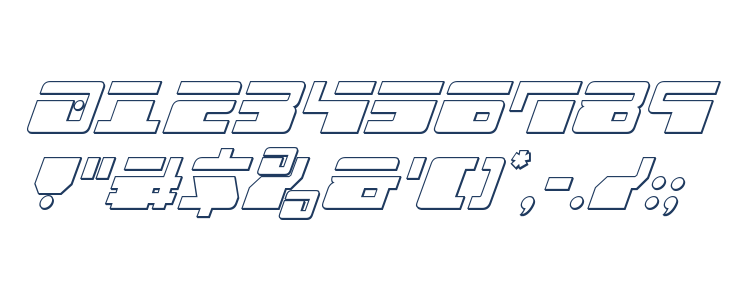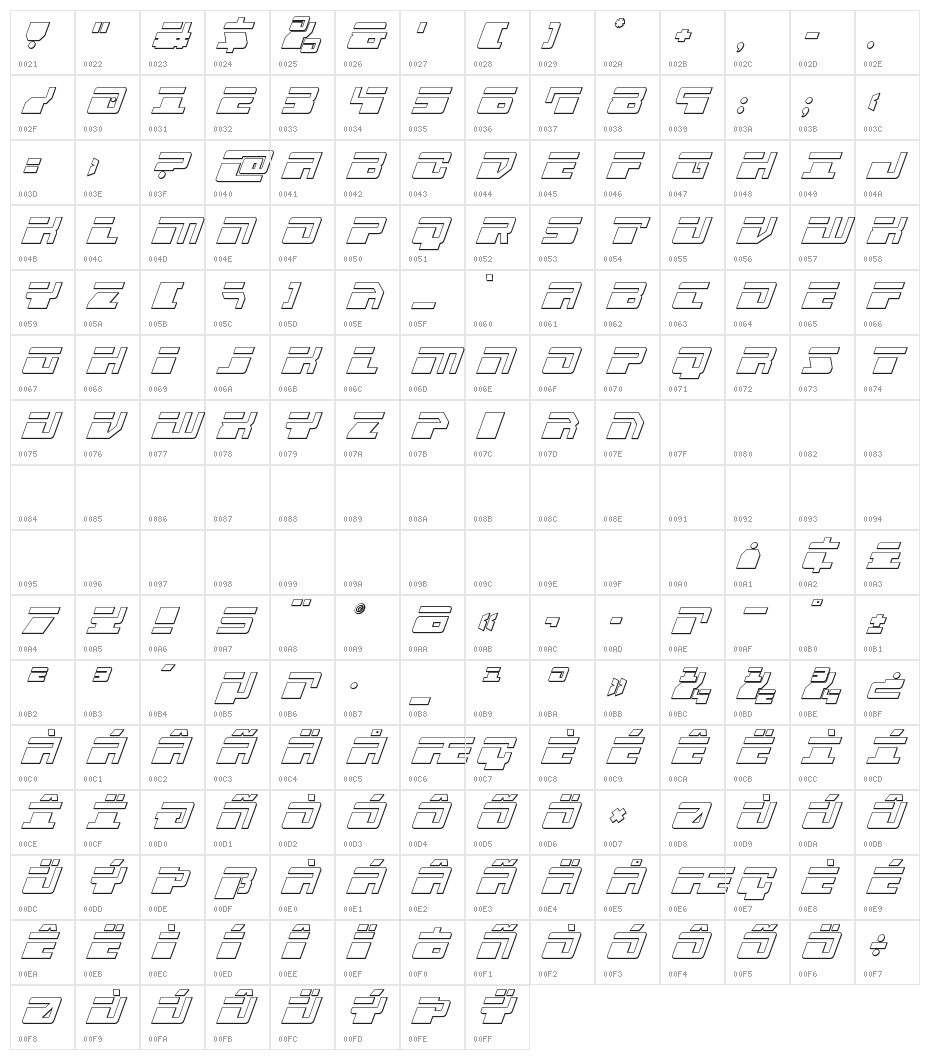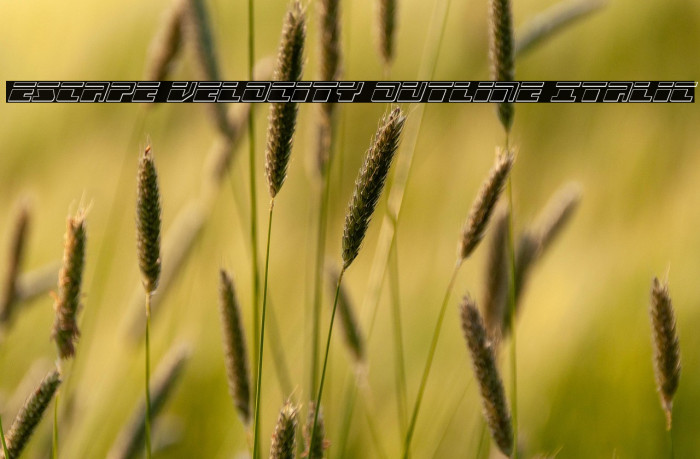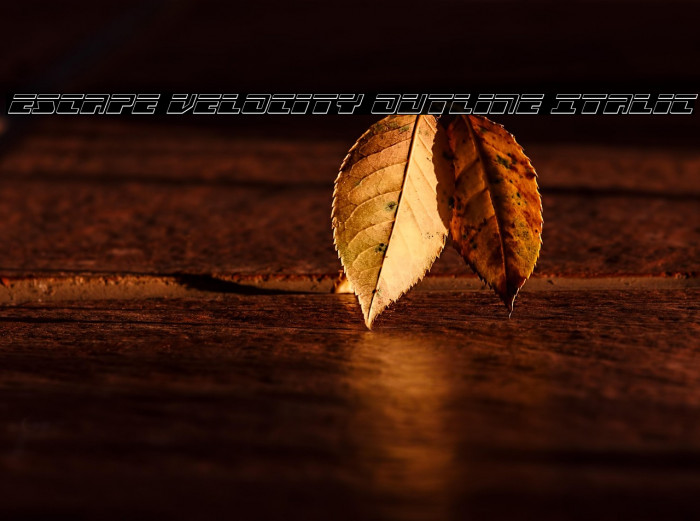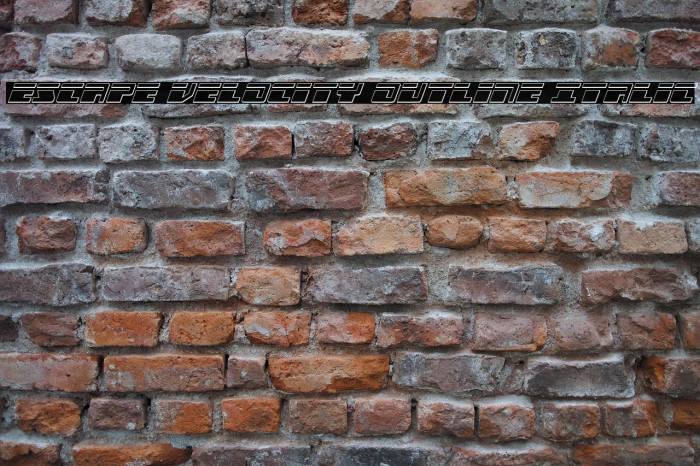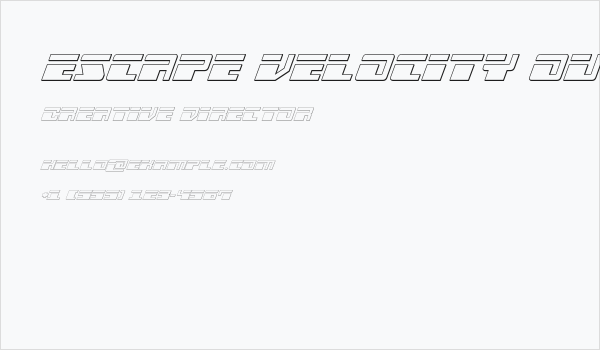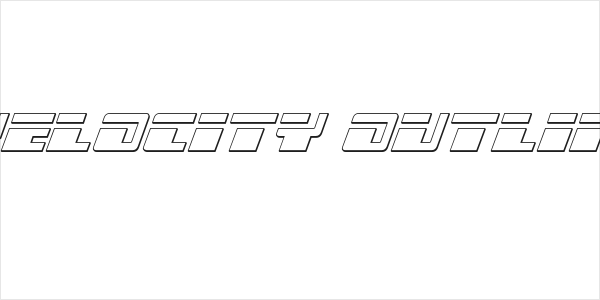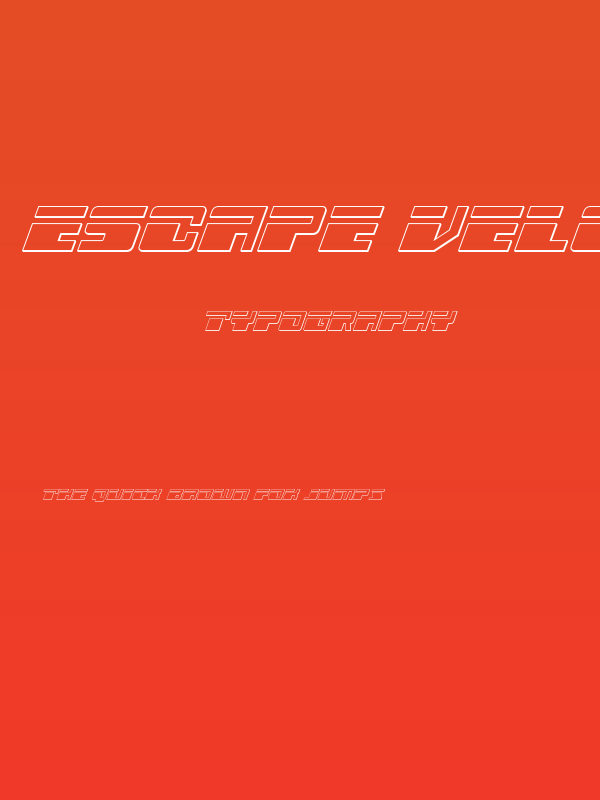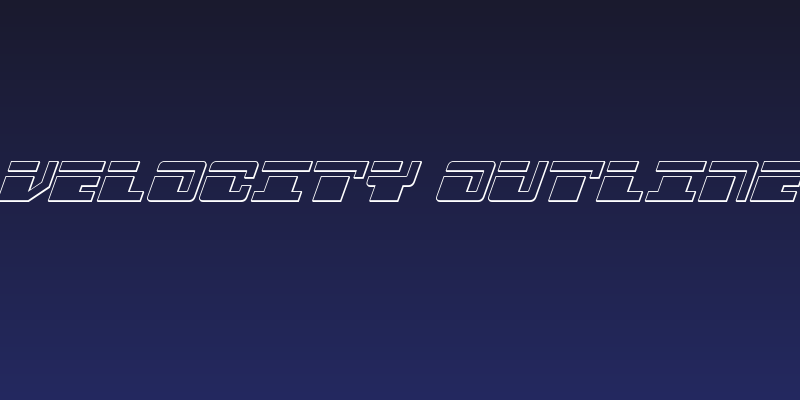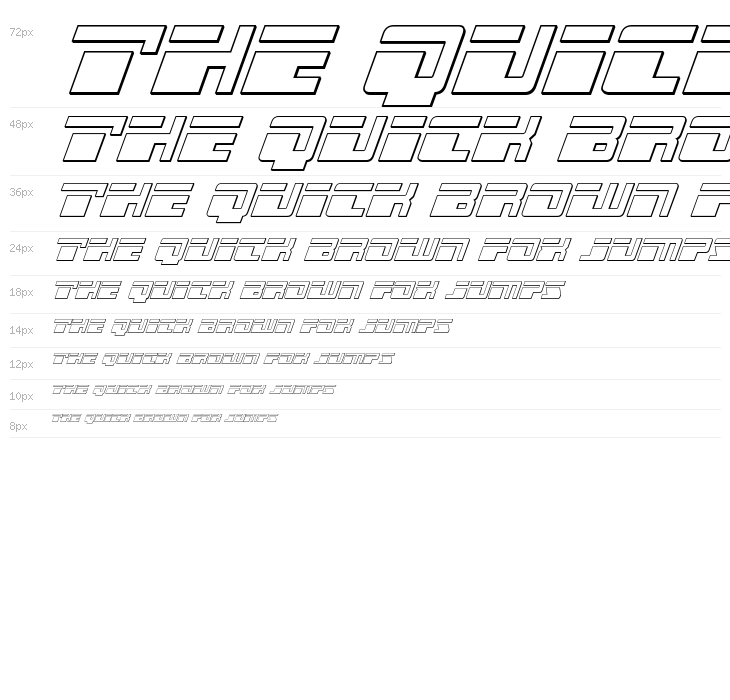
Escape Velocity Outline Italic Font
Escape Velocity Outline Italic Description
This font features a futuristic and angular design with an outline style that gives it a distinct, modern appearance. The characters are italicized, adding a dynamic and forward-leaning aspect to the overall look. The sharp edges and geometric shapes create a sense of movement and speed, making it ideal for projects that require a cutting-edge and technological feel. The uppercase and lowercase letters maintain a consistent style, while the numbers and special characters complement the overall aesthetic. The font's outline nature allows for creative layering and color usage in design projects.
| Proposed Projects | Ideal for sci-fi themed posters, tech company branding, video game titles, and futuristic event invitations. |